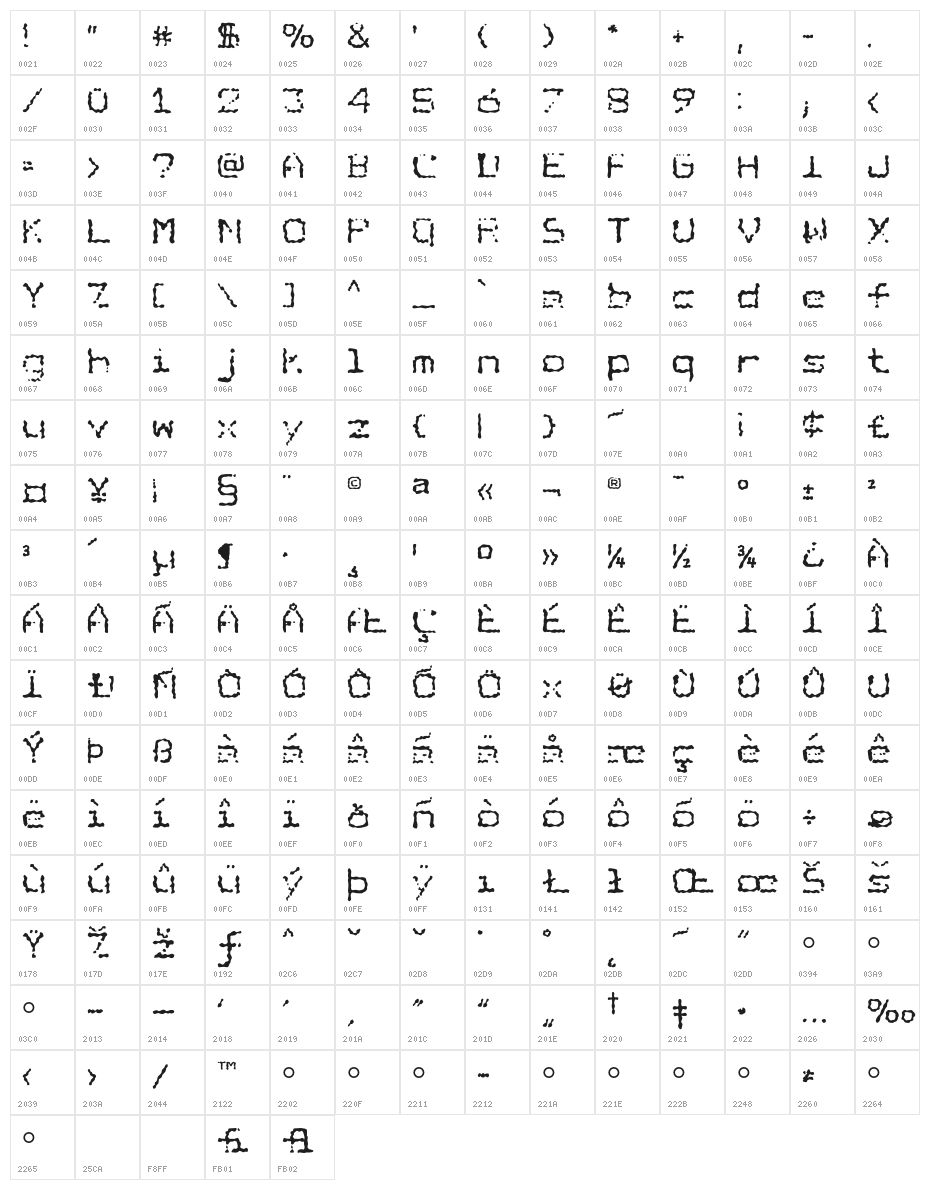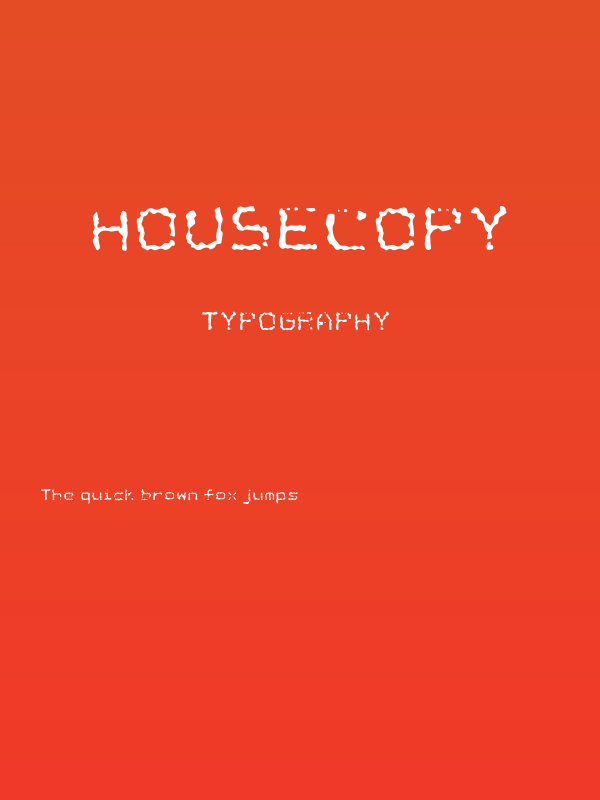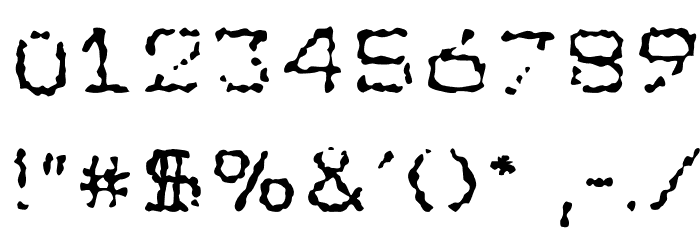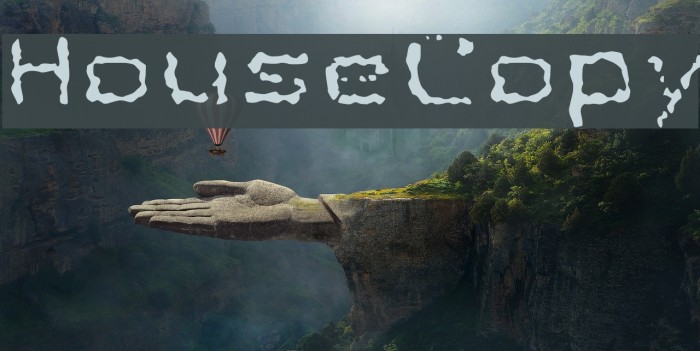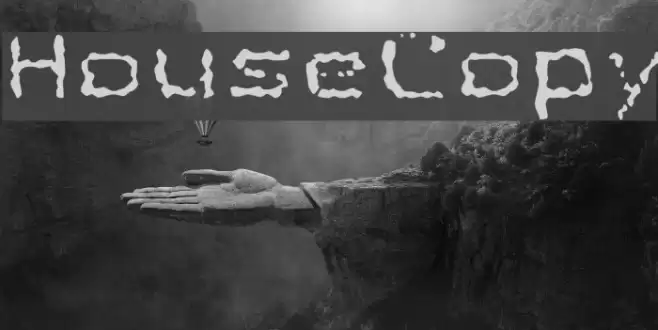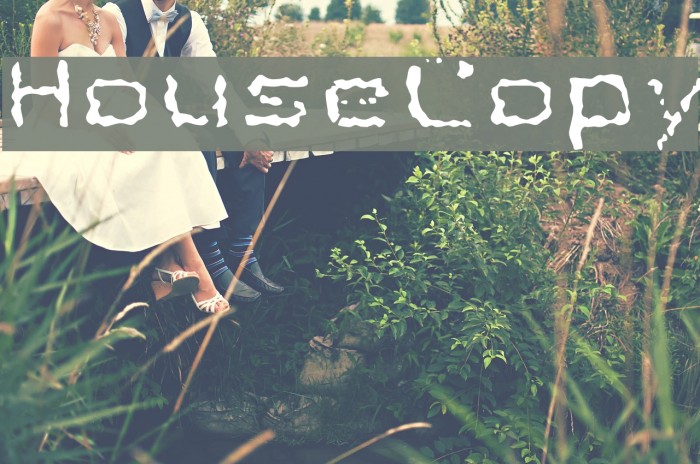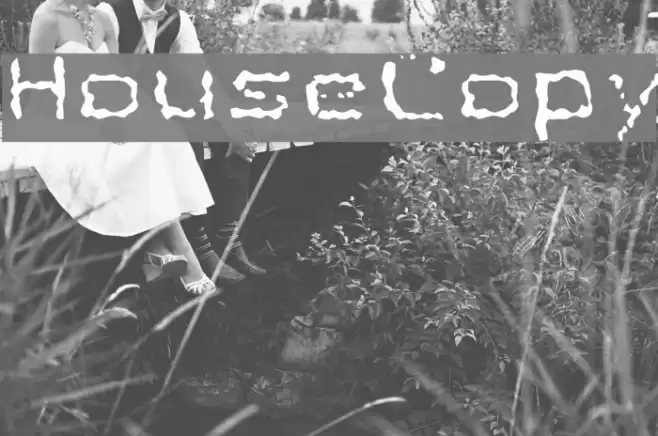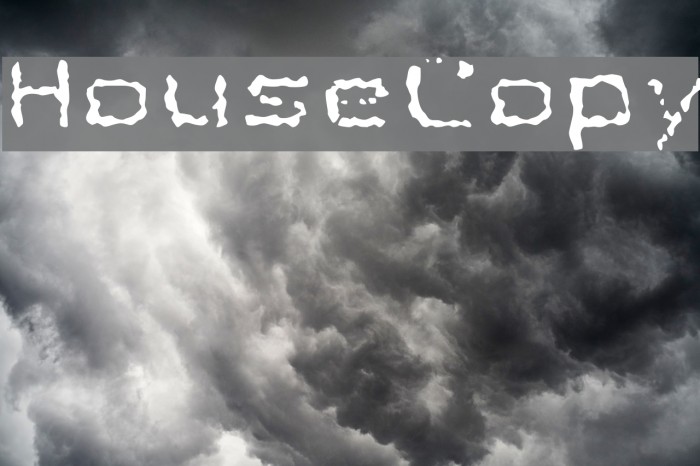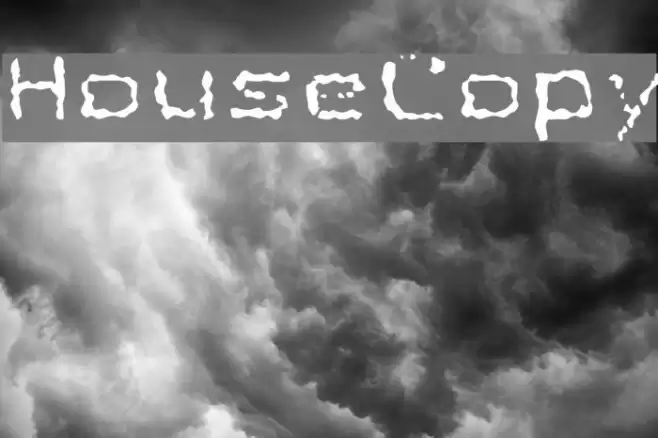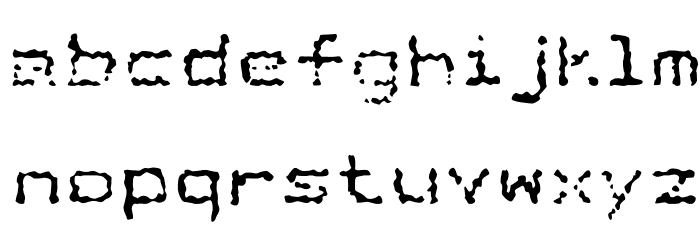
HouseCopy Font
HouseCopy Description
This font features a unique, distressed appearance with irregular edges and a textured look, reminiscent of ink splatters or worn-out typewriter keys. The characters maintain a consistent height, giving it a structured feel despite its rough texture. The uppercase and lowercase letters are distinct, with the uppercase being slightly more pronounced. Numbers and special characters follow the same design, ensuring uniformity across all glyphs. This font's style is eye-catching and unconventional, making it suitable for creative projects that require a bold statement.
| Proposed Projects | Ideal for artistic designs, posters, album covers, and any project needing a grunge or vintage aesthetic. |